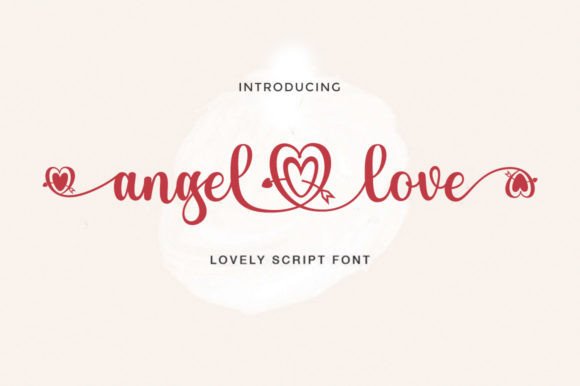
Introducing Angel Love Font, the ultimate choice for anyone seeking to infuse their designs with an irresistible dose of romance and elegance. Created by the talented artists at LetterFreshStudio, this lovely calligraphic script font is designed to captivate hearts and inspire emotions.
Angel Love Font is the perfect companion for those special moments in life that demand a touch of sophistication. Its graceful flourishes and delicate strokes effortlessly create an atmosphere of enchantment, making it an ideal choice for wedding invitations, love letters, or any romantic project that requires a dash of magic.
One of the greatest advantages of Angel Love Font is its versatility. It seamlessly adapts to various design purposes, allowing you to effortlessly convey your message and evoke the desired emotions. Whether you're creating branding materials for a high-end wedding planner or designing a tattoo with a sentimental meaning, Angel Love Font will elevate your creations to new heights.
With its PUA encoding, Angel Love Font grants you easy access to a wide range of glyphs and ligatures. You can effortlessly embellish your designs with unique and eye-catching elements, ensuring that each creation stands out from the crowd. Let your creativity flow and explore the endless possibilities that Angel Love Font offers.
What sets Angel Love Font apart from its competitors is its ability to evoke emotions and create a lasting impact. Its romantic and timeless design strikes a chord with your audience, drawing them in and leaving a lasting impression. Whether you're a professional designer or a passionate DIY enthusiast, Angel Love Font will be your secret weapon for creating captivating and unforgettable visuals.
In conclusion, Angel Love Font is the epitome of charm and elegance. Its captivating design, combined with its versatility and emotive power, make it the perfect choice for anyone looking to add a touch of romance to their designs. Download Angel Love Font now and embark on a journey of creativity and enchantment like never before.